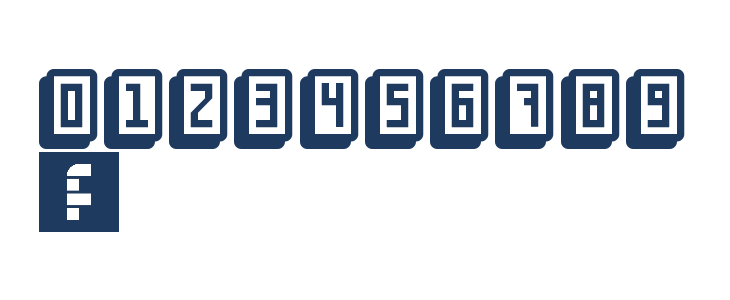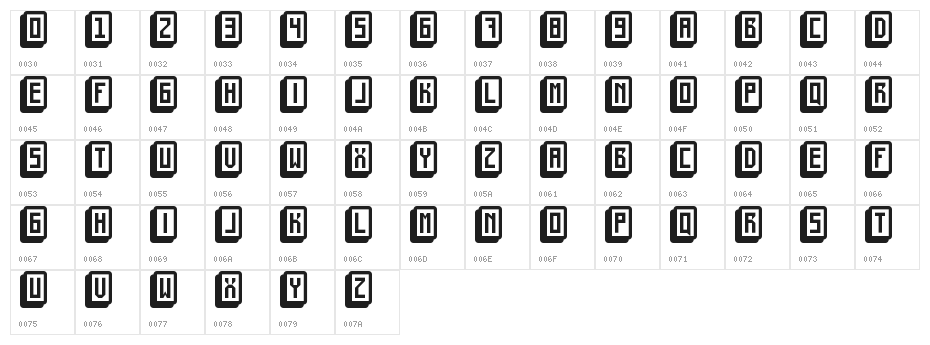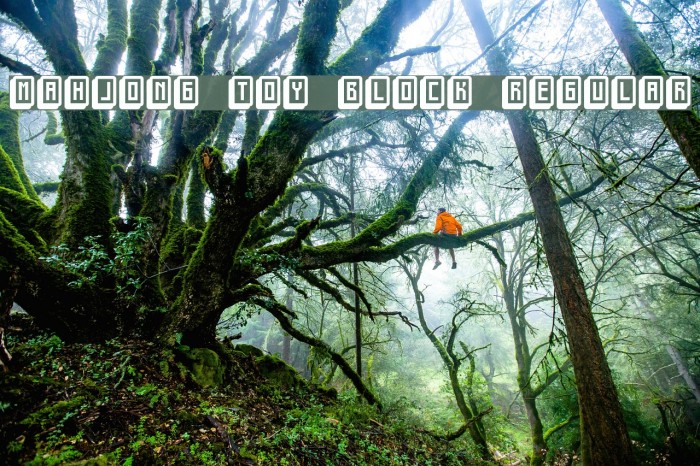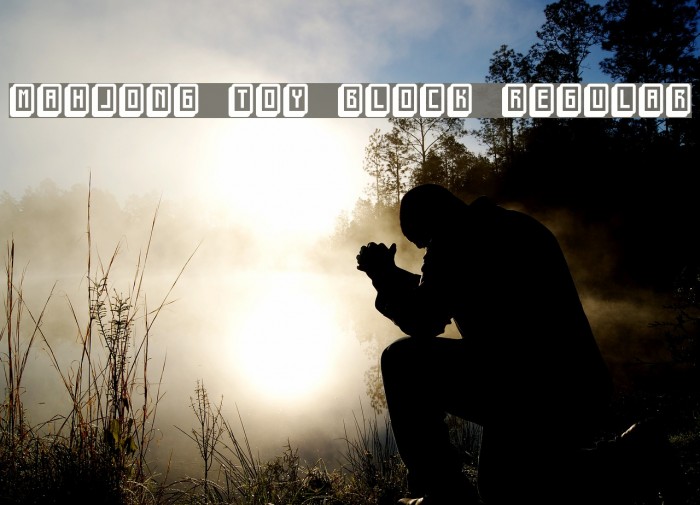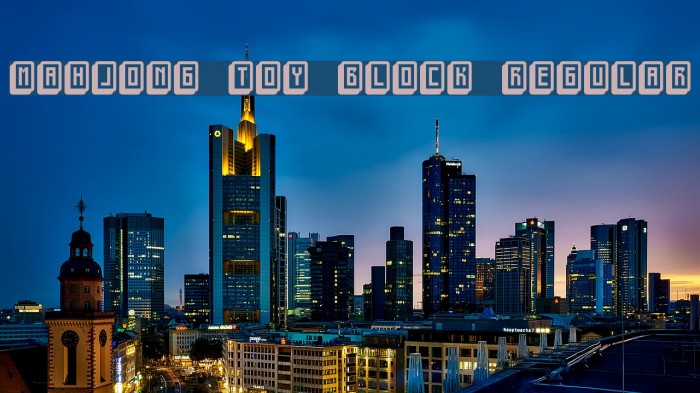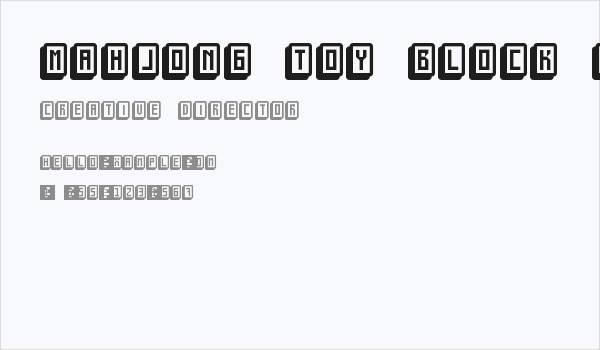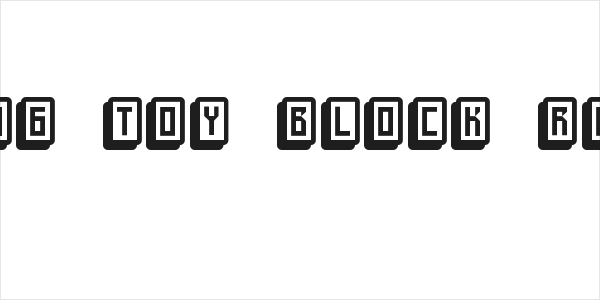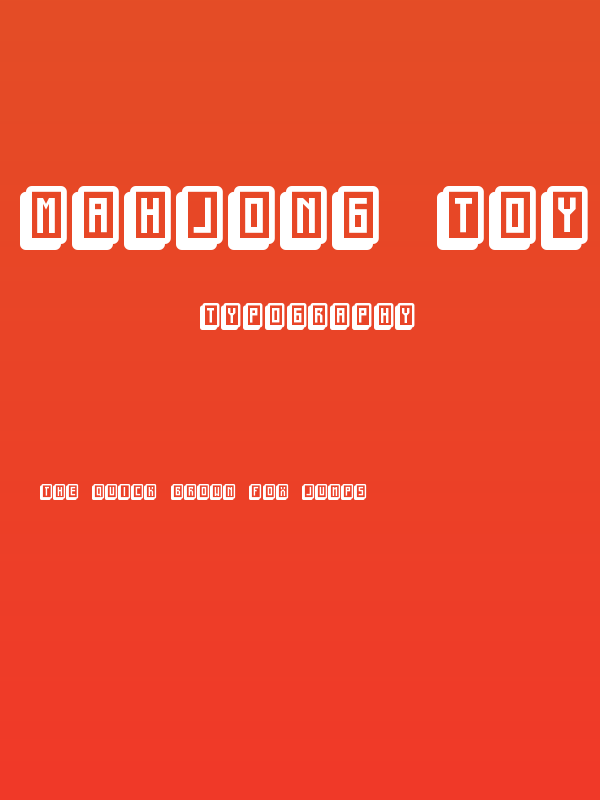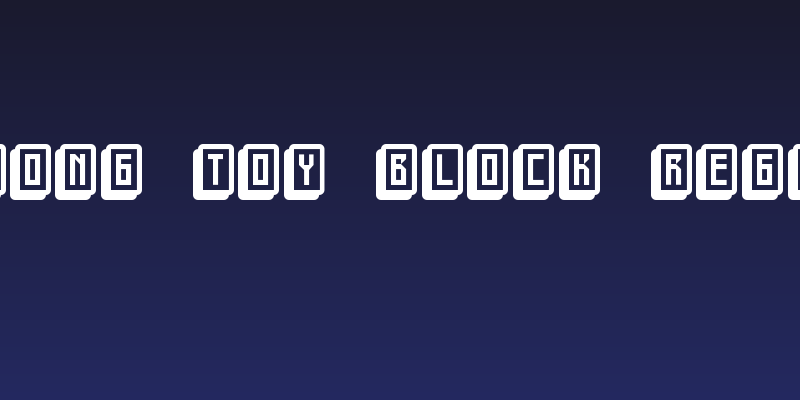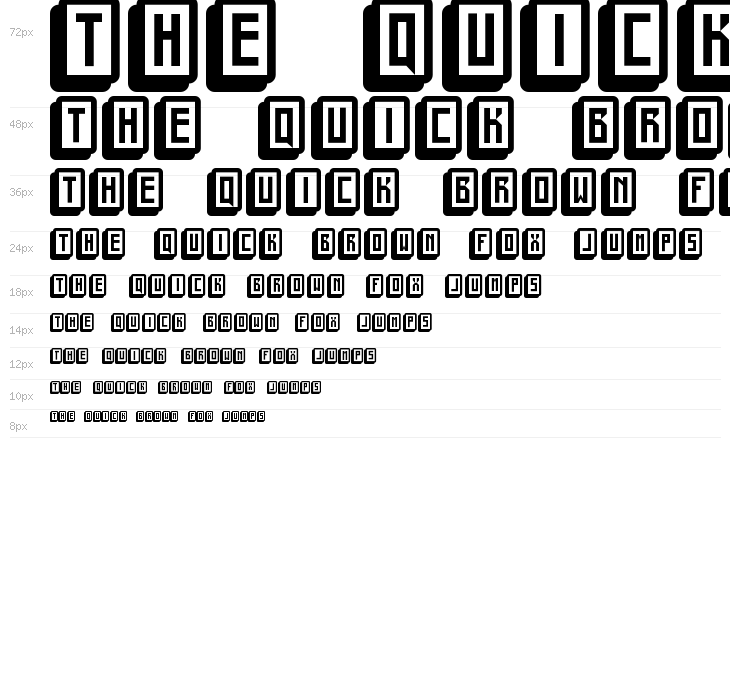
mahjong toy block Regular Font
mahjong toy block Regular Description
This font features a bold, blocky design reminiscent of toy blocks, with each character encased in a solid border that gives it a three-dimensional appearance. The letters and numbers are uniformly styled with a consistent thickness, creating a cohesive and playful aesthetic. The geometric shapes and strong outlines make it highly legible and eye-catching, suitable for designs that require a fun and engaging look. The font maintains a uniform width across all characters, contributing to its structured and orderly appearance. Its boldness and distinct style make it ideal for projects that aim to capture attention and convey a sense of playfulness.
| Overall Style | Playful, Modern |
| Proposed Projects | Ideal for children's books, toy packaging, playful branding, and educational materials. |